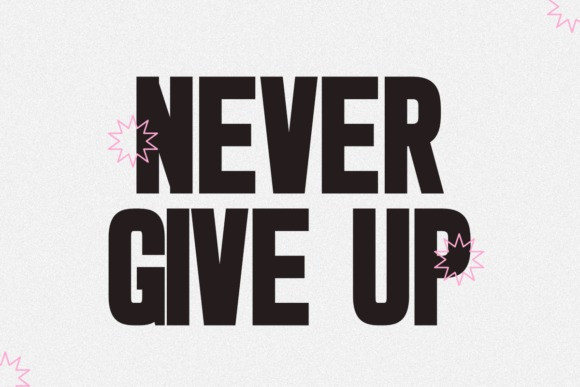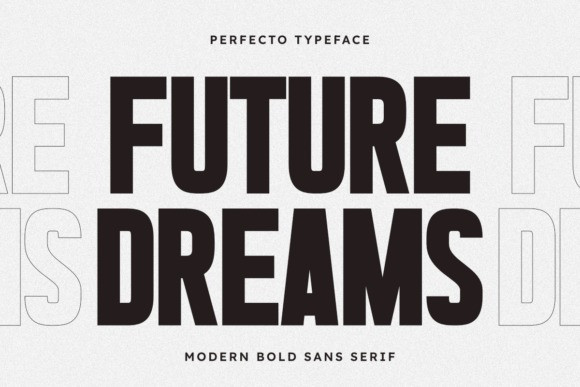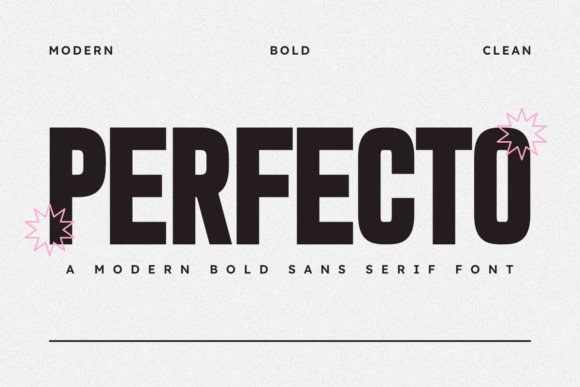
Perfecto Sans Font
Perfecto Sans Font is a modern bold sans serif font crafted for clarity, power, and presence. With strong lines and clean edges, it brings a professional look to logos, product packaging, social media, display ads, and t-shirt designs.
This typeface was designed to make your message stand out — perfect for print-on-demand designs, branding projects, Cricut crafts, and eye-catching headlines. Whether you’re working on minimalistic packaging or vibrant merch, Perfecto gives your work a bold and timeless edge.